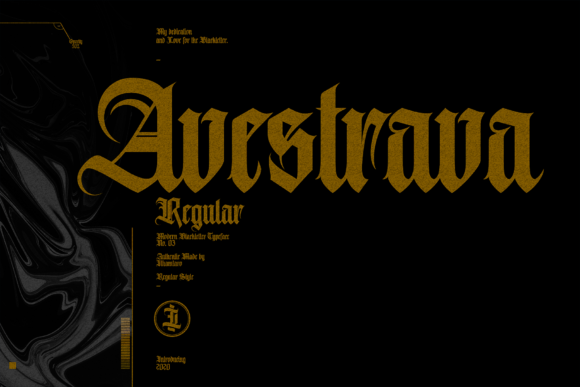
Step into the realm of captivating typography with Avestrava, a blackletter font that embodies boldness, elegance, and a touch of the extraordinary. This masterpiece, crafted by the skilled hands of ilhamtaro, is a testament to the power of visual storytelling through letters.
Avestrava is not just a font; it's an expression of individuality, a gateway to creative expression, and an opportunity to make a lasting impact on your designs. Its bold strokes command attention, while its intricate details add a layer of captivating intrigue.
Picture this: you're working on a vintage-inspired poster, and you need a font that exudes a timeless charm. Avestrava steps up to the plate, effortlessly transporting you back to an era of elegance and sophistication. Its blackletter style, reminiscent of ancient manuscripts, adds an air of authenticity and mystique to your creation.
Or perhaps you're designing a flyer for a concert or a special event. Avestrava's bold presence cuts through the noise, demanding attention and setting the stage for an unforgettable experience. Its unique character adds a touch of exclusivity, making your event stand out from the crowd.
Avestrava's versatility extends beyond posters and flyers. It's equally at home in logos, branding, and social media graphics. Imagine creating a logo for a luxury brand that exudes sophistication and timeless appeal. Avestrava's bold strokes and intricate details convey a sense of heritage and prestige, leaving an indelible mark on the minds of your audience.
And let's not forget about social media. In a world where visual impact reigns supreme, Avestrava becomes your secret weapon. Its striking presence captivates followers, turning ordinary posts into captivating works of art. Whether you're promoting a new product, announcing an upcoming event, or simply sharing a thought-provoking quote, Avestrava elevates your content, making it impossible to ignore.
So, dear creative soul, embrace the power of Avestrava and unlock the true potential of your designs. Let your imagination soar, let your creativity flow, and let Avestrava be your trusted companion on this extraordinary journey. Step into the world of Avestrava today and experience the transformative power of typography.